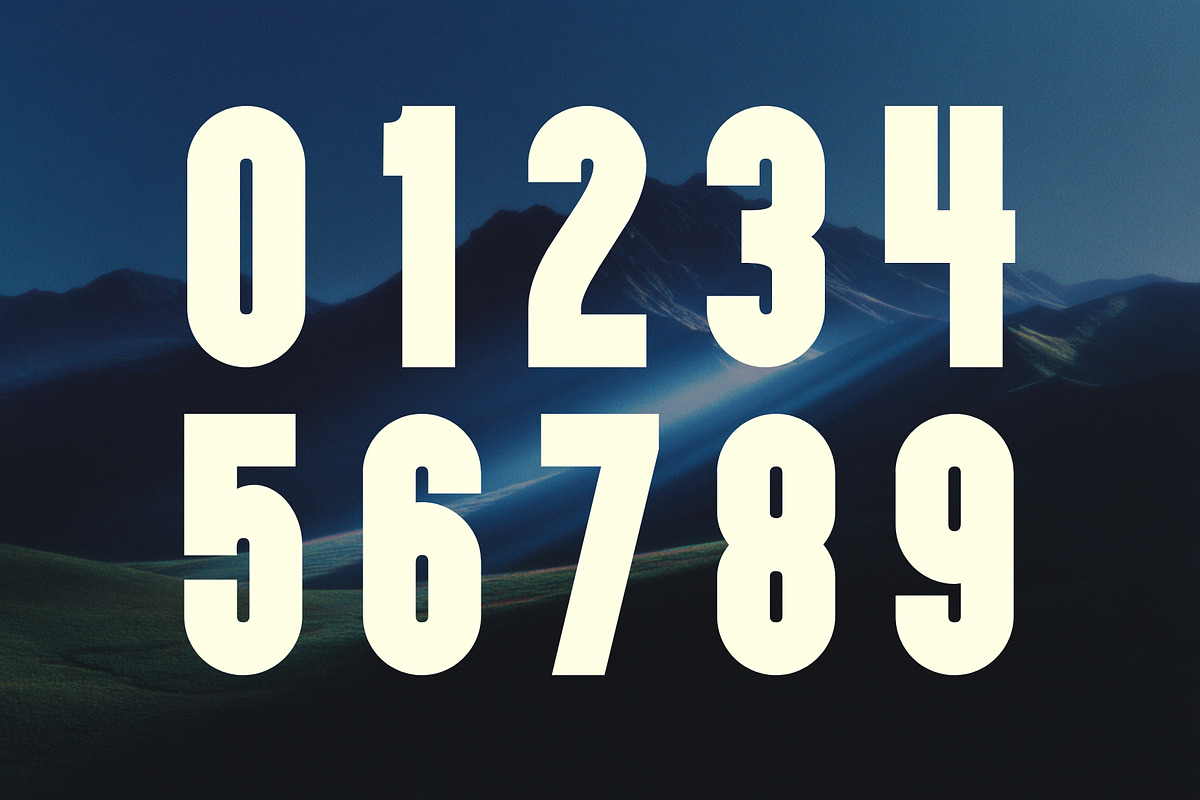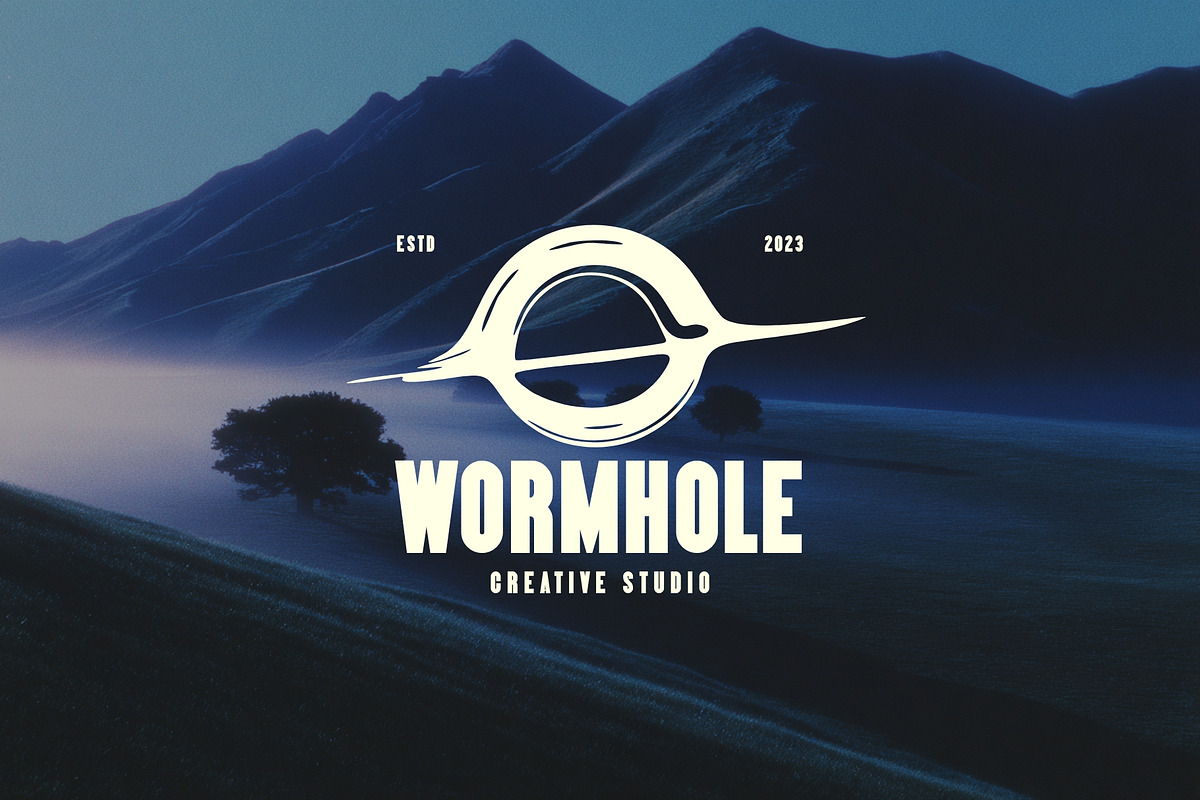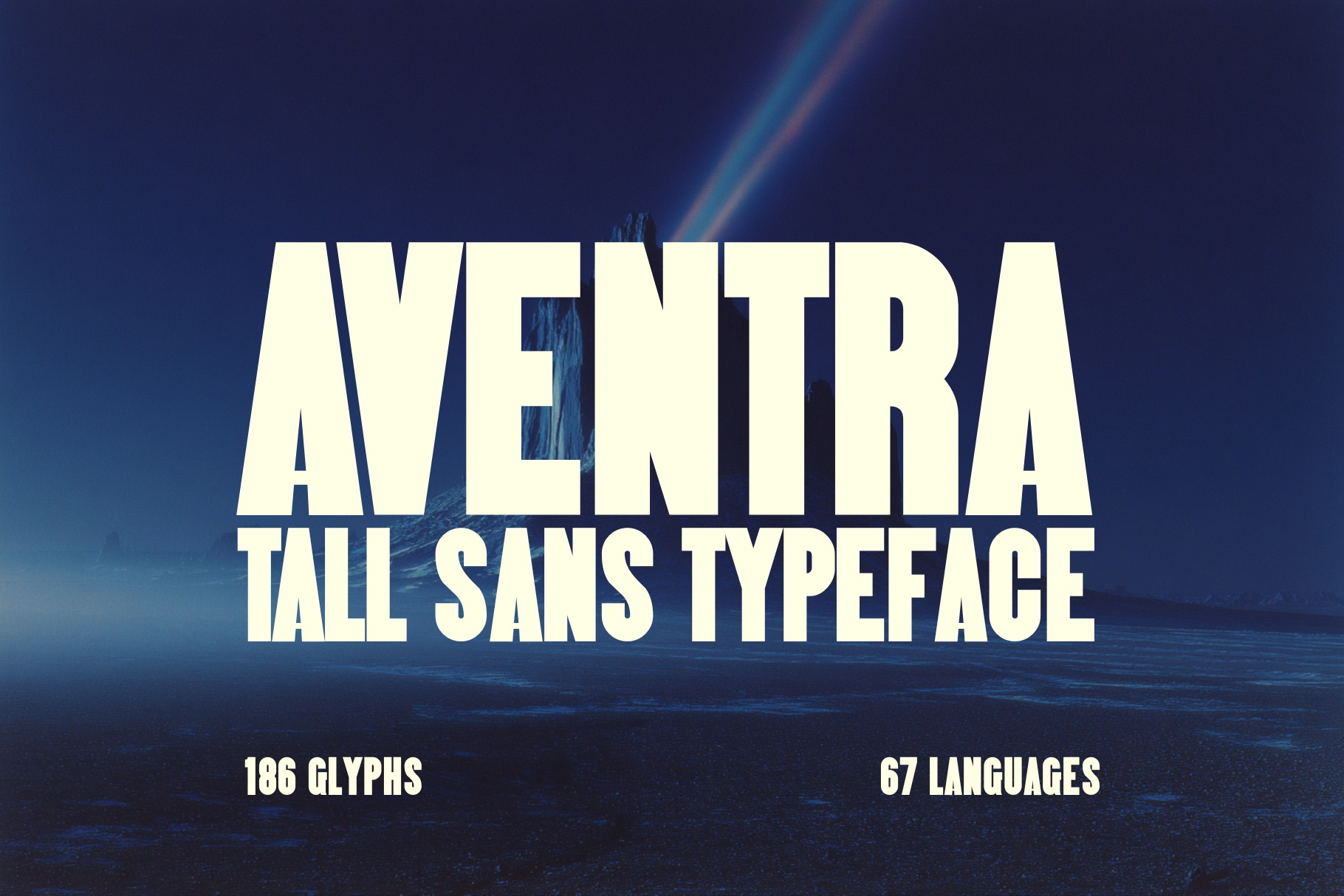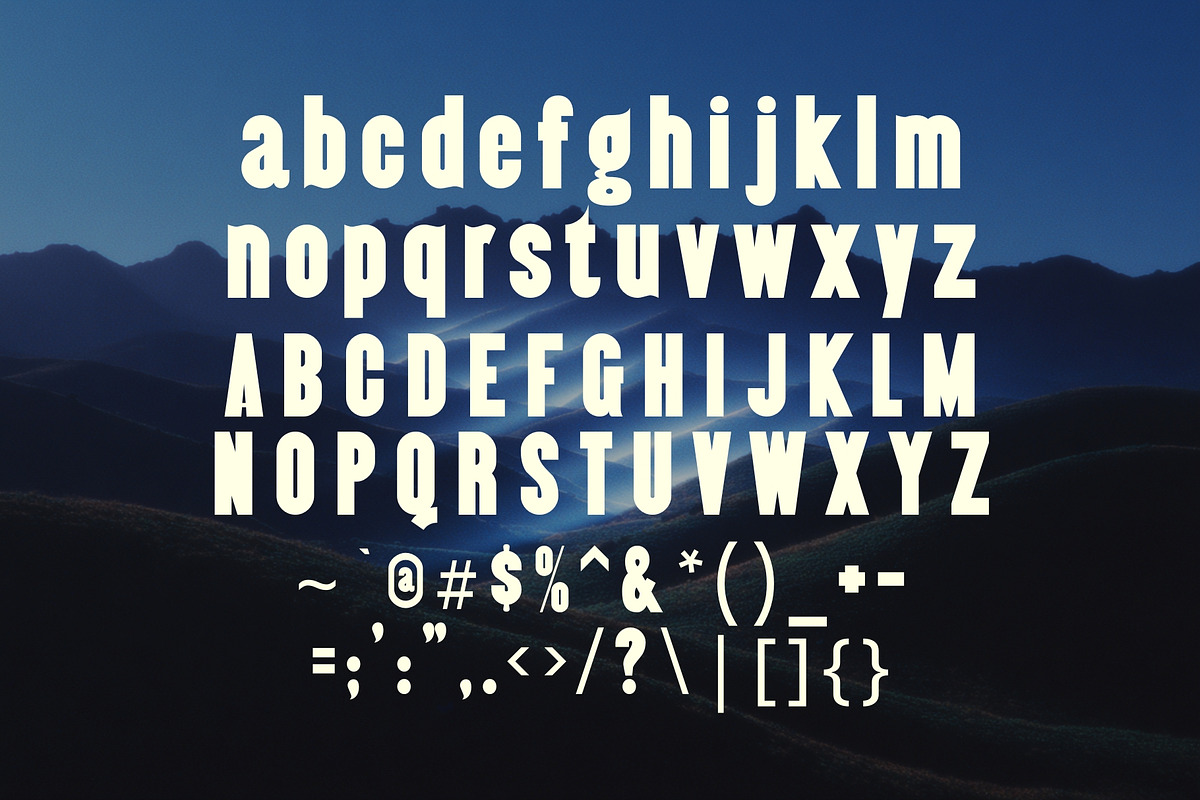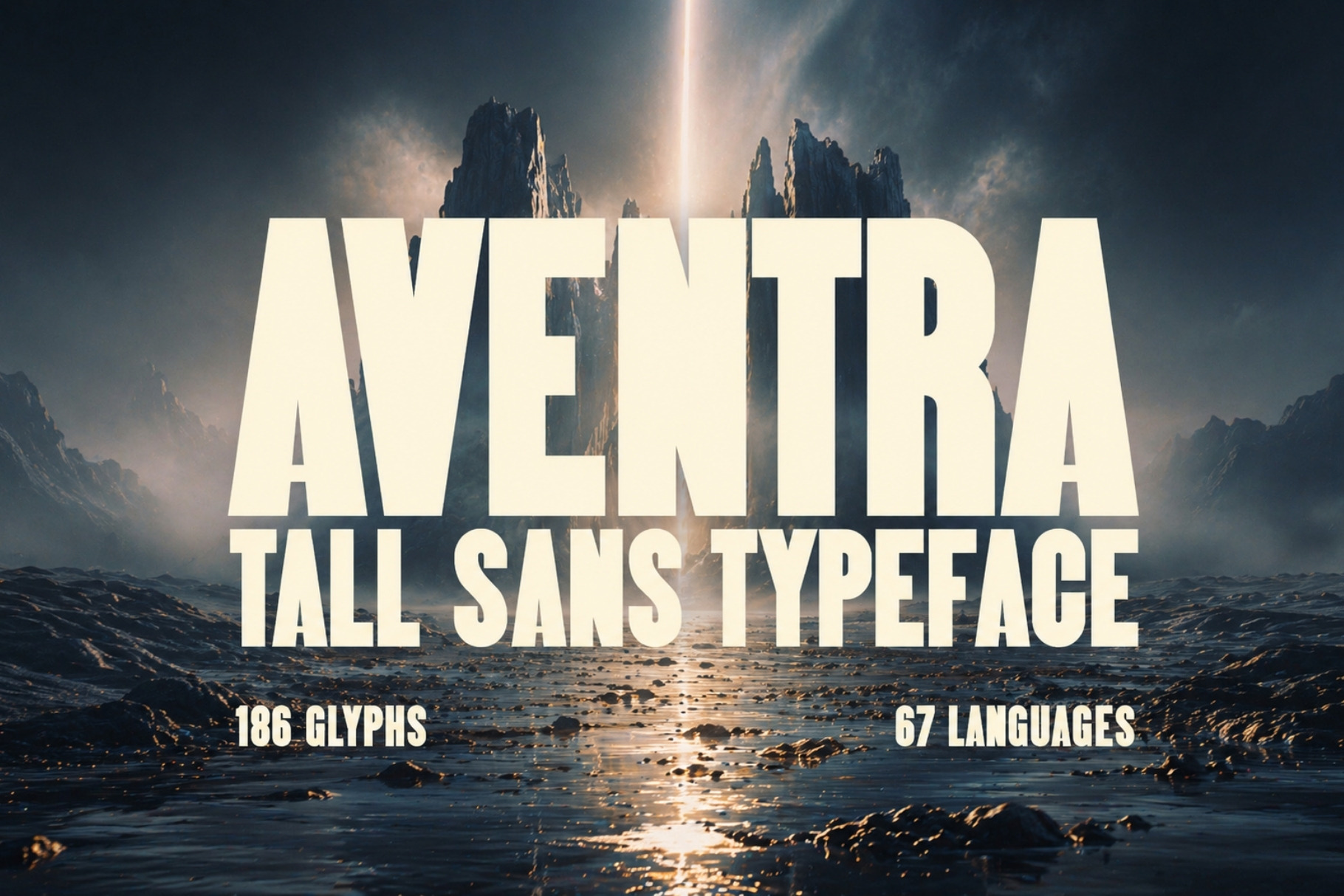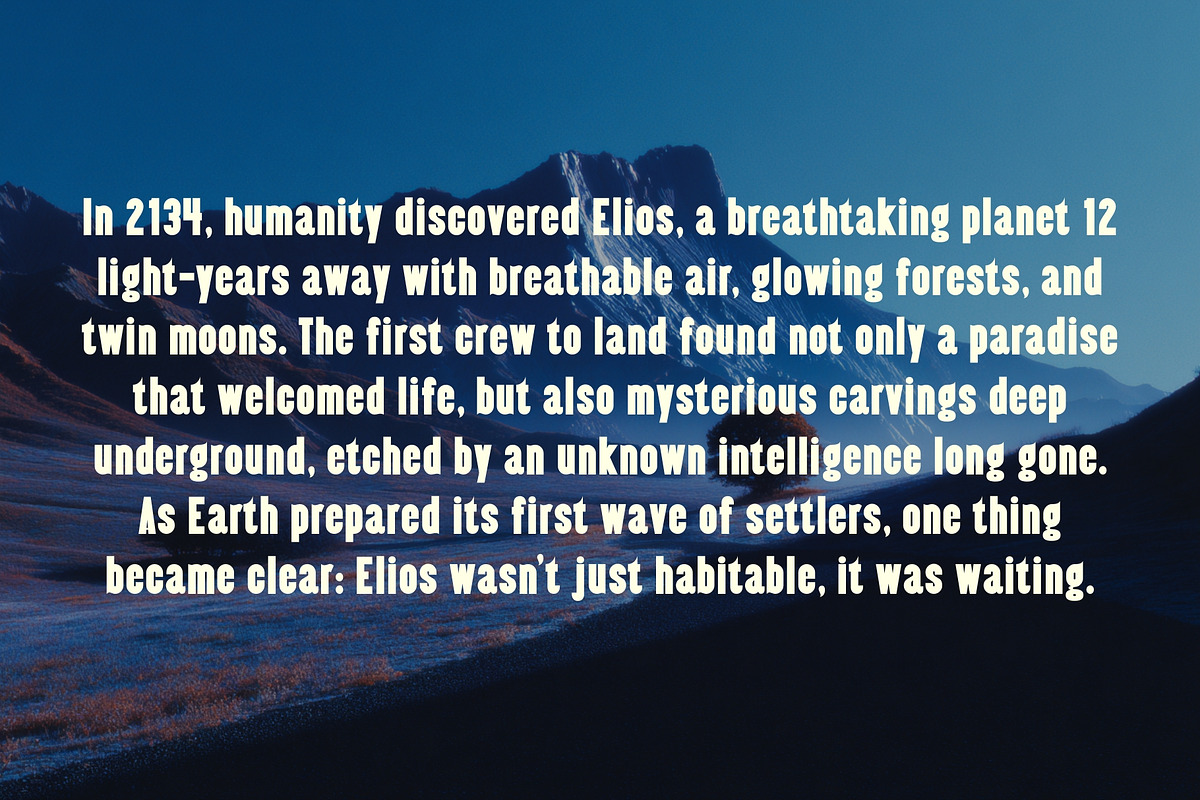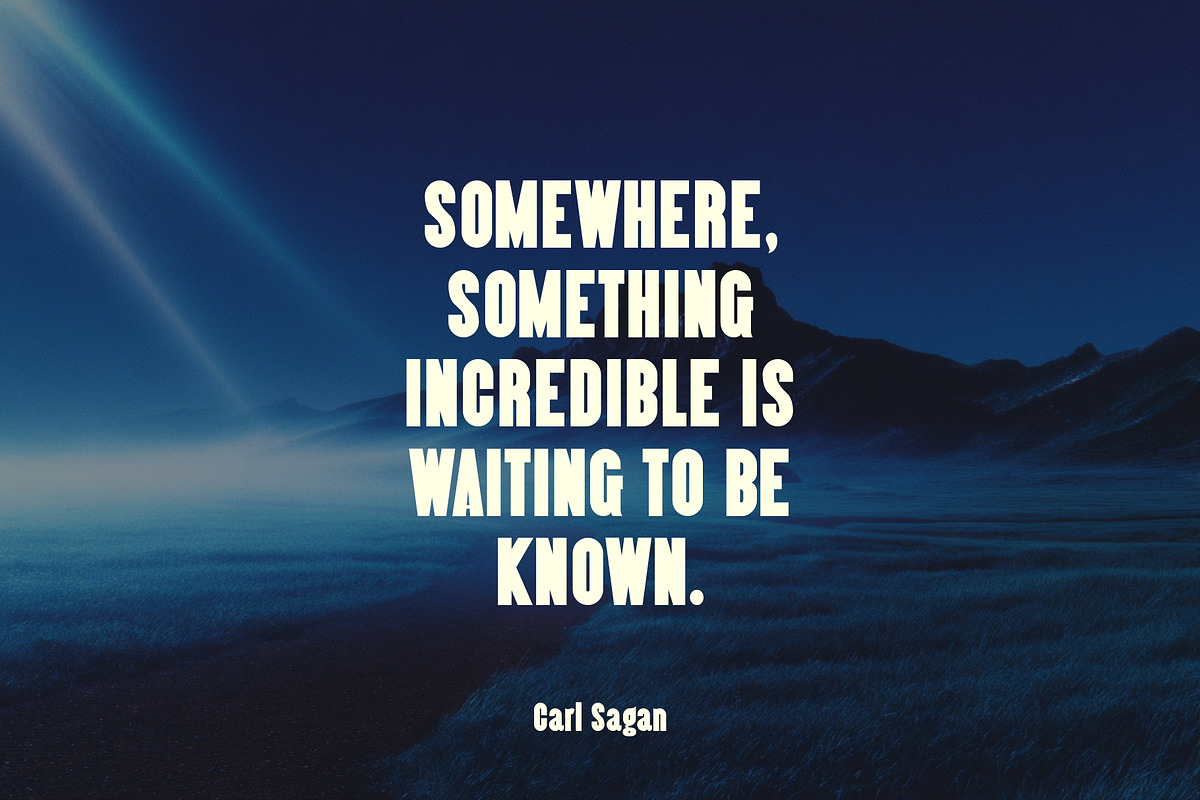
Aventra – Tall Sans Serif Font
Step into modern elegance with Aventra, a tall sans serif typeface that exudes confidence, clarity, and minimal charm. With its clean lines and refined geometry, Aventra is designed to elevate your branding, packaging, and editorial projects with effortless sophistication.
Whether you're crafting a luxury product label, a stylish logo, or high-end packaging, Aventra's sleek vertical stance and contemporary proportions make it a versatile powerhouse. Its legibility is crystal-clear at any size, and its understated boldness ensures your message always comes through with precision and impact.
Branding & Identity
Editorial Layouts
Fashion Labels
Modern Websites
Tech & Startup Aesthetics
Aventra isn’t just a font, it’s a design statement. Minimal. Modern. Memorable.